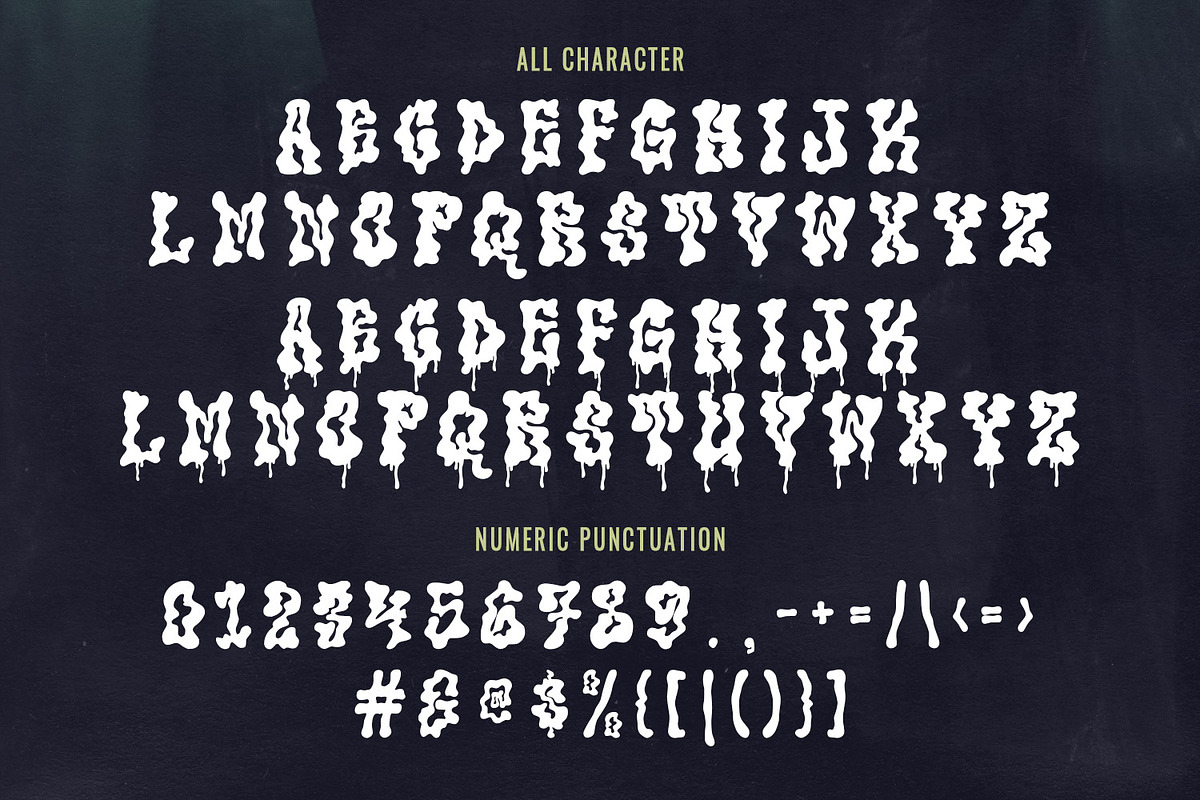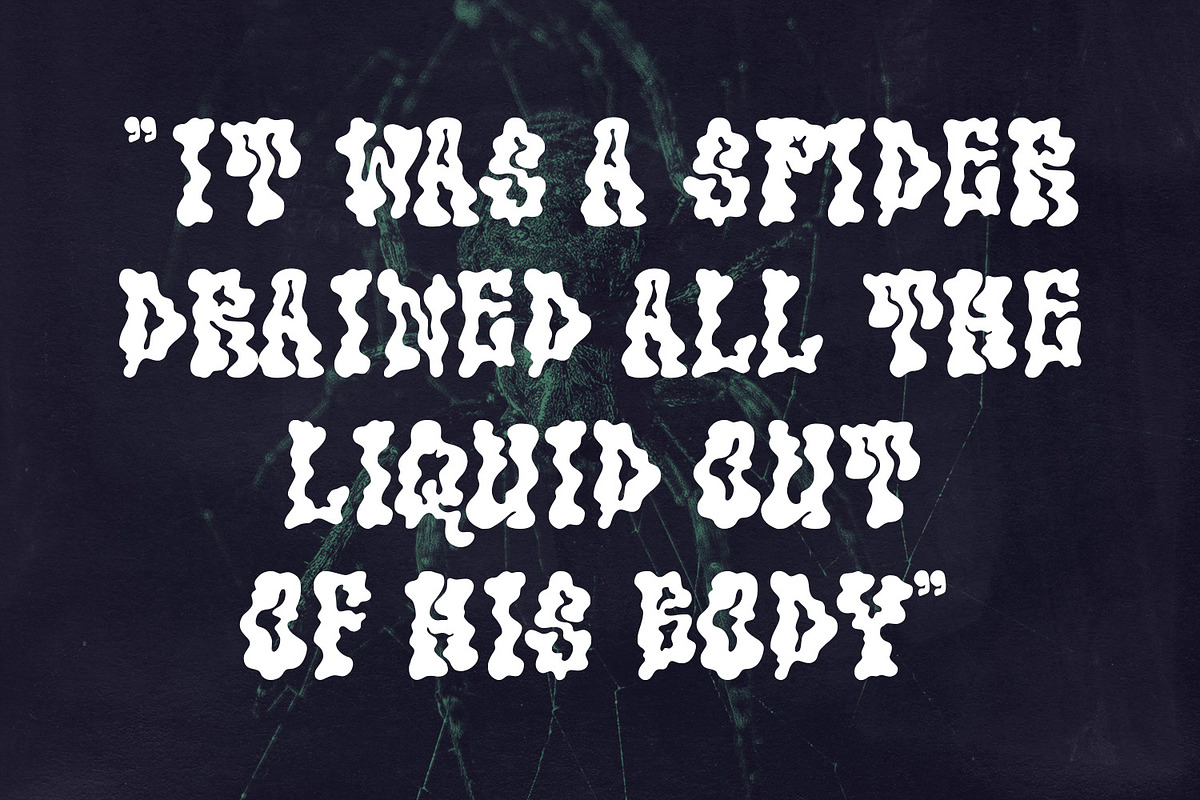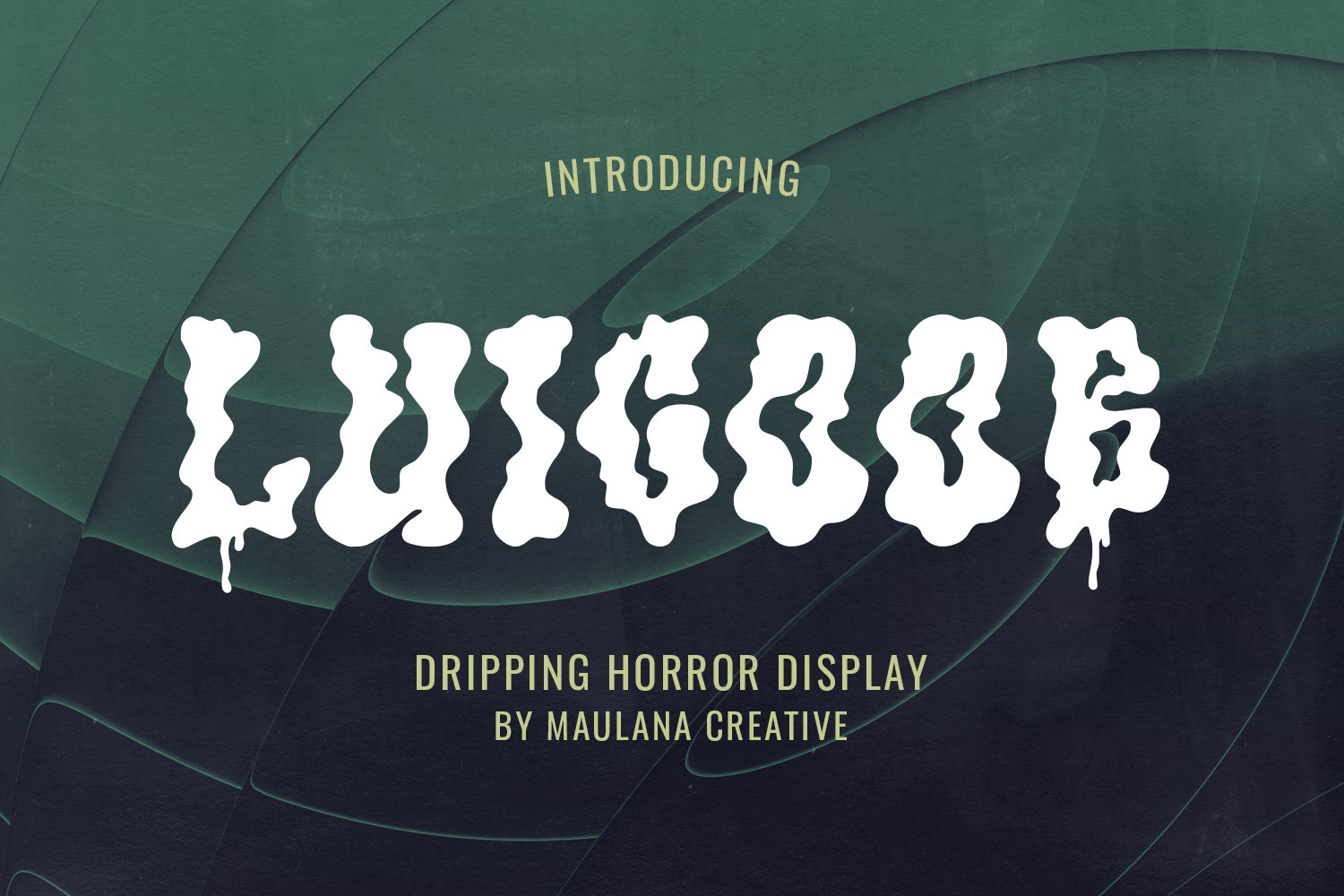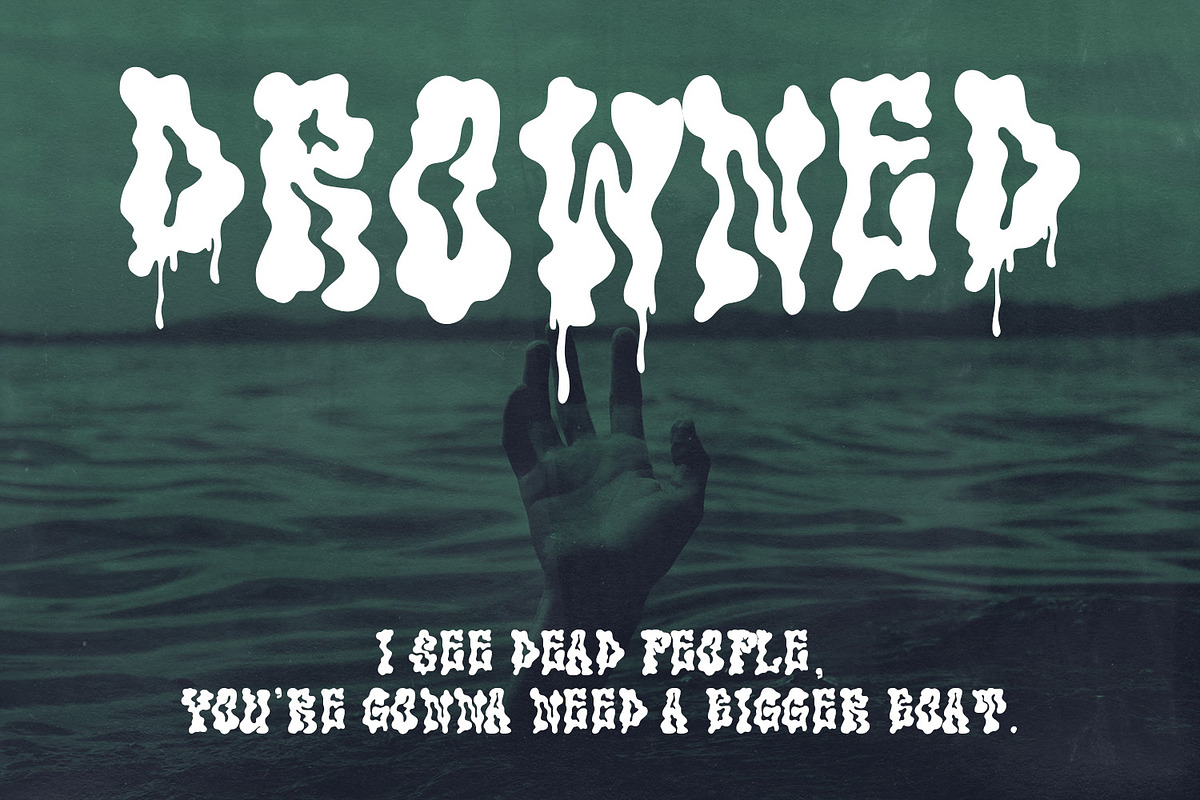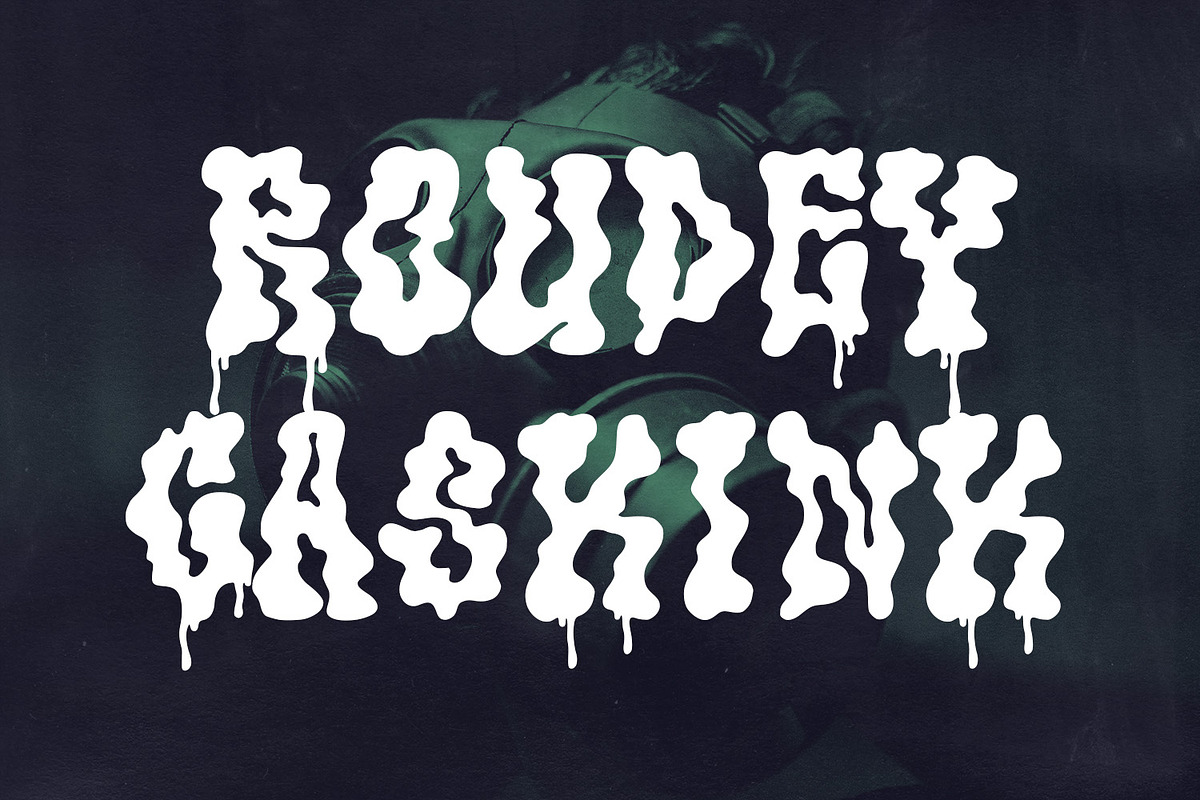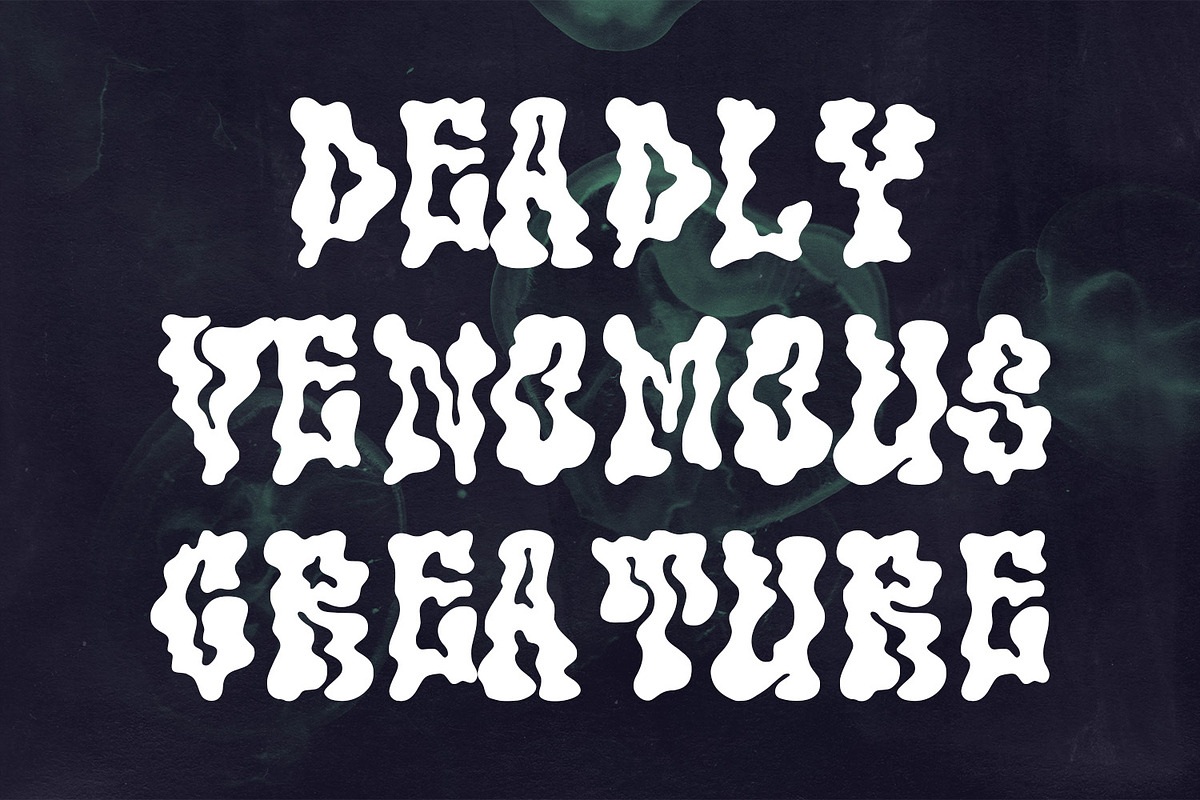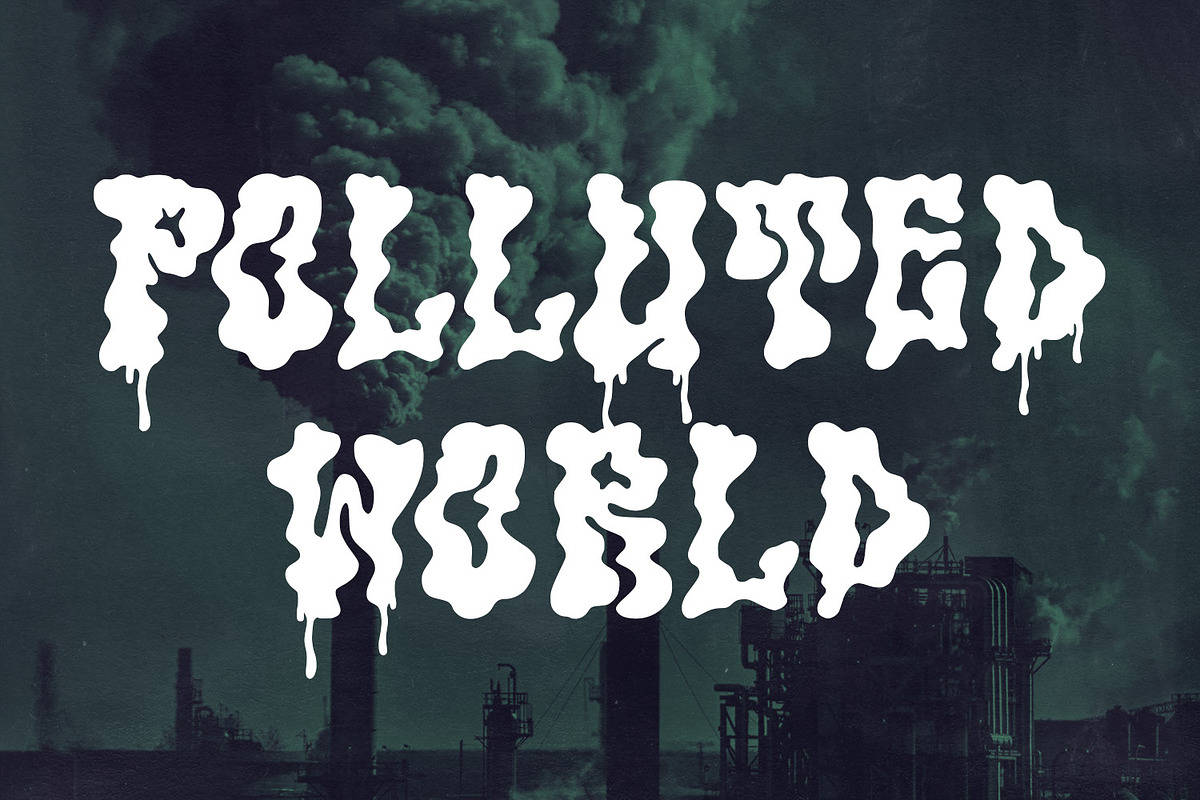
Luicoob Dripping Horror Display Font
Introducing Luicoob, a chilling and captivating display font designed to inject an immediate sense of horror and mystery into your projects. This typeface features bold, chunky letters with a unique liquid, melted, and dripping effect, making it perfect for designs that need to look sinister, gooey, or freshly slimy. Horror aesthetic, perfect for conveying themes of fear, movies, vintage horror, or a macabre atmosphere. Distinct dripping style, each character boasts authentic looking drips, as if blood, or slime is running off the letters. Versatile display use, ideal for large scale applications where high impact is needed. Ideal for halloween party invitations, costumes, event, album covers, movie, thriller, zombie films, brand identity and more.